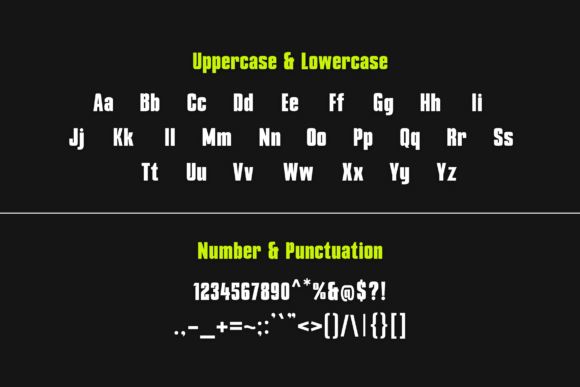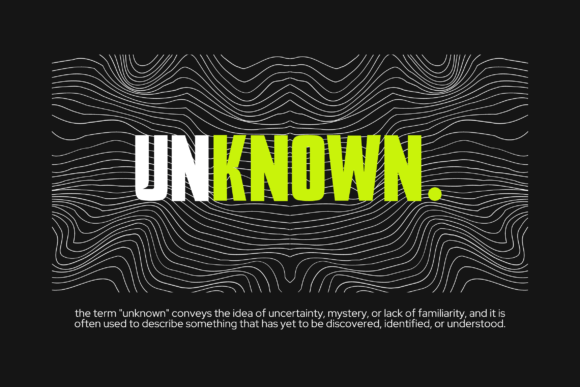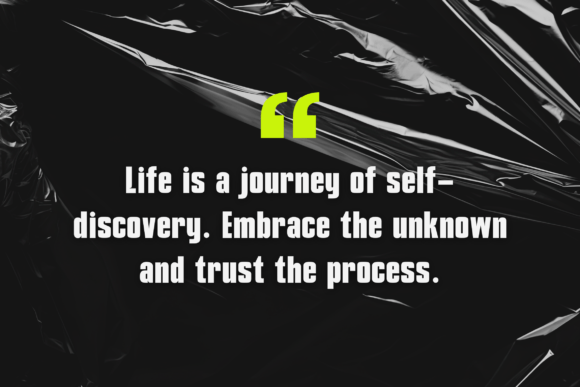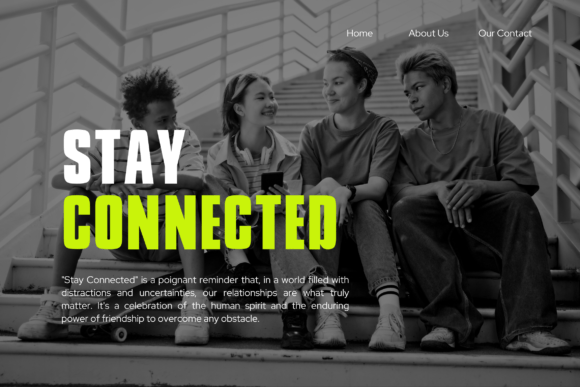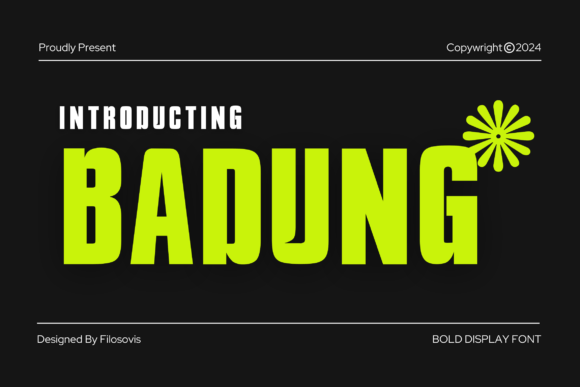
The Right Font to Make a Statement
You know that moment when you’re stuck on a design project and you just can’t seem to nail the look? Maybe you’ve got the perfect concept, but the font is just missing that extra oomph to bring it all together. That’s where the Badung Font comes in – a cool display font that exudes urban attitude and streetwise charm.
With its bold, angular letterforms and gritty aesthetic, the Badung Font is perfect for capturing attention on posters, album covers, and edgy branding projects. Whether you’re a seasoned designer or just starting out, this font is a valuable addition to your toolkit – and a great way to add a dose of urban flair to your designs.
Badung Font Key Features
- Font Family: Badung Font is a unique sans-serif font designed for various digital and print media applications.
- Font Size: The font comes in 6 weights (Thin, Light, Regular, Medium, Bold, Black) to cater to different design requirements.
- Unique Characteristics: The font features a clean and modern design with a unique geometric shape, making it perfect for branding and advertising materials.
Designer Review: Badung Font
Overall, I’m impressed with the Badung Font, but it’s not without its quirks. Here’s my honest review.
- The unique blend of modern and traditional elements in the font design is captivating.
- The Badung Font is highly legible, even at smaller font sizes.
- The font’s versatility makes it suitable for a wide range of applications, from branding to body text.
- The font’s intricate details may not display perfectly at very small sizes or low resolutions.
- The weight and style variations, while numerous, may not be as consistent across different systems.
The Badung Font is an excellent addition to any designer’s toolkit, offering a distinctive and readable aesthetic. While it may have some limitations, its strengths make it a great choice for projects where a unique look is essential.
Getting the Most Out of the Badung Font
The Badung font is ideal for creating eye-catching headlines and titles.
Use it to add a touch of elegance and sophistication to your designs.
Experiment with different font sizes and colors to create a unique visual effect.
The Badung font is commonly used in:
1. Fashion and beauty branding
2. Luxury product packaging
3. High-end marketing materials
Yes, you can customize the Badung Font to fit your project’s needs. The font is designed to be highly customizable, with features like ligatures, swashes, and alternate characters. You can also use font editing software, such as FontLab or FontForge, to make further adjustments and create custom variations of the font.